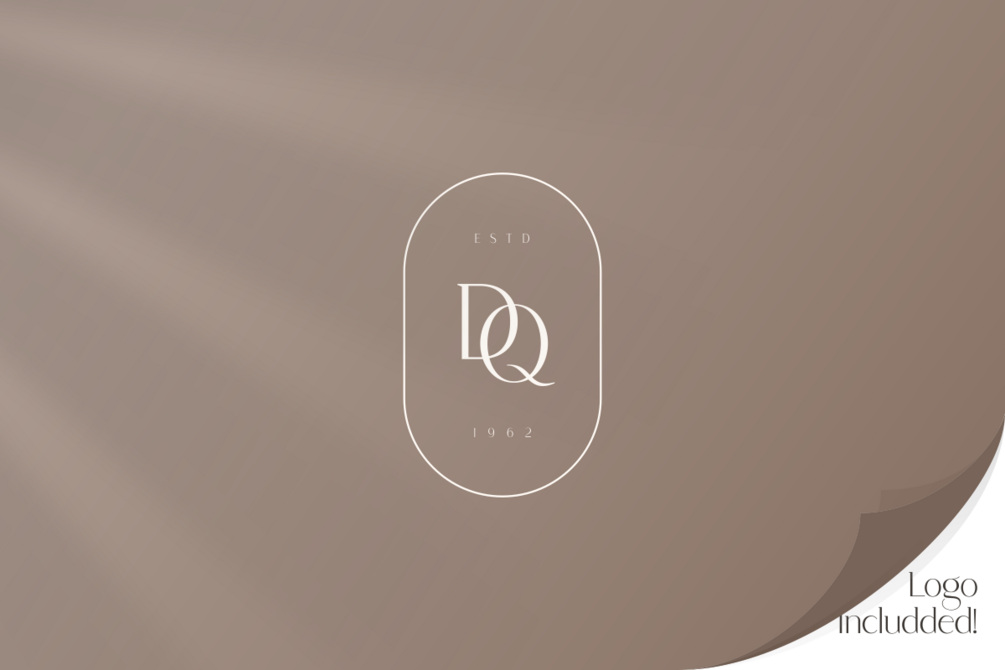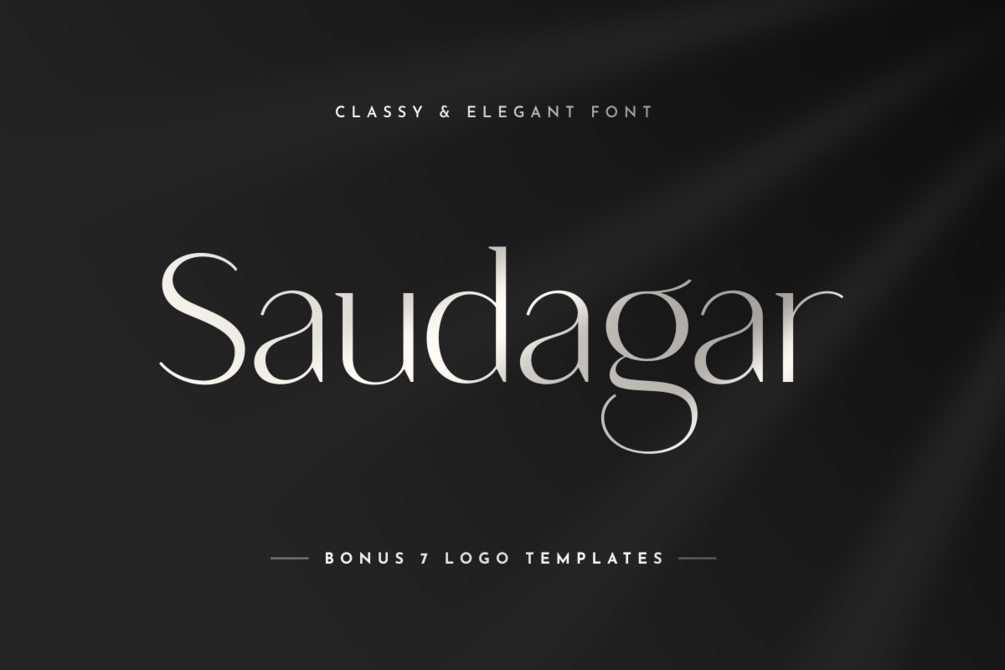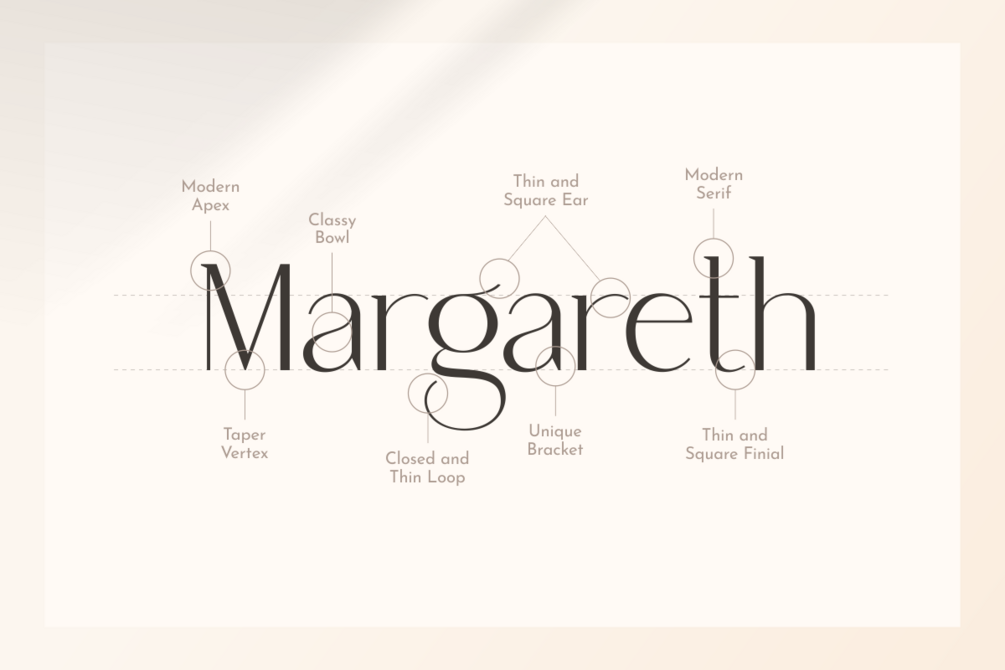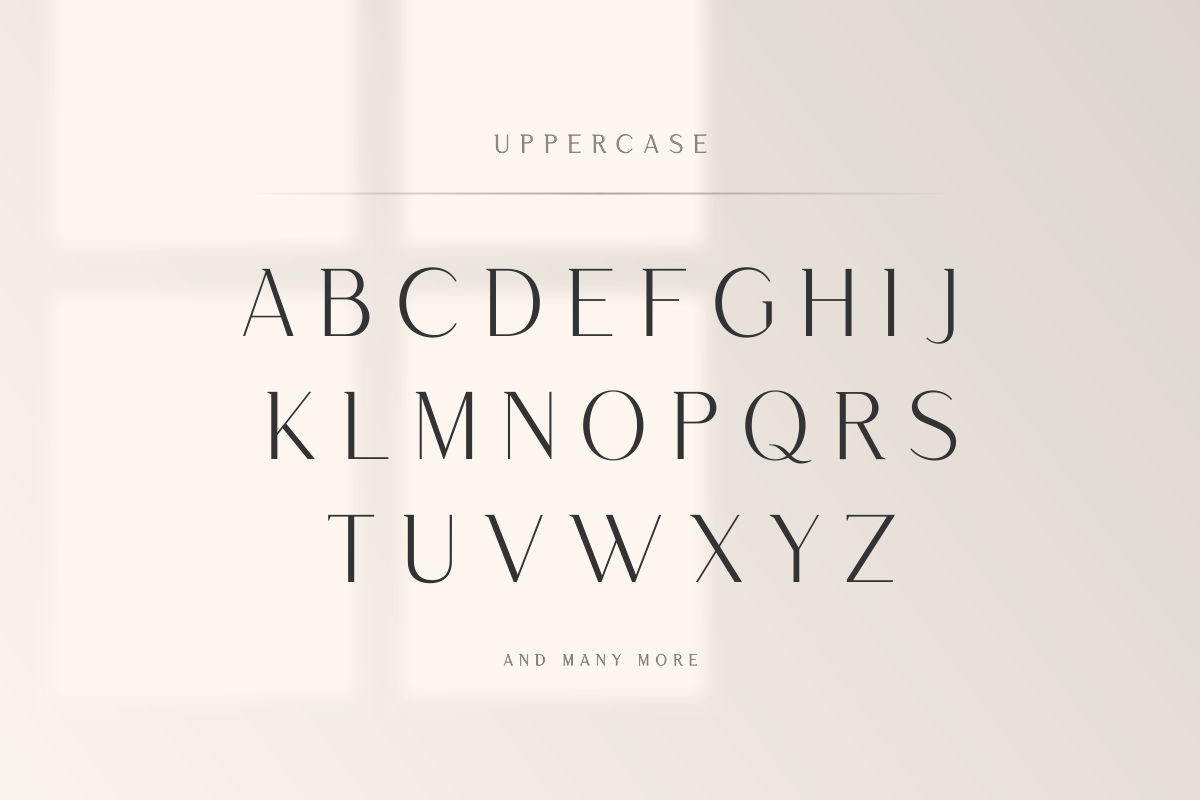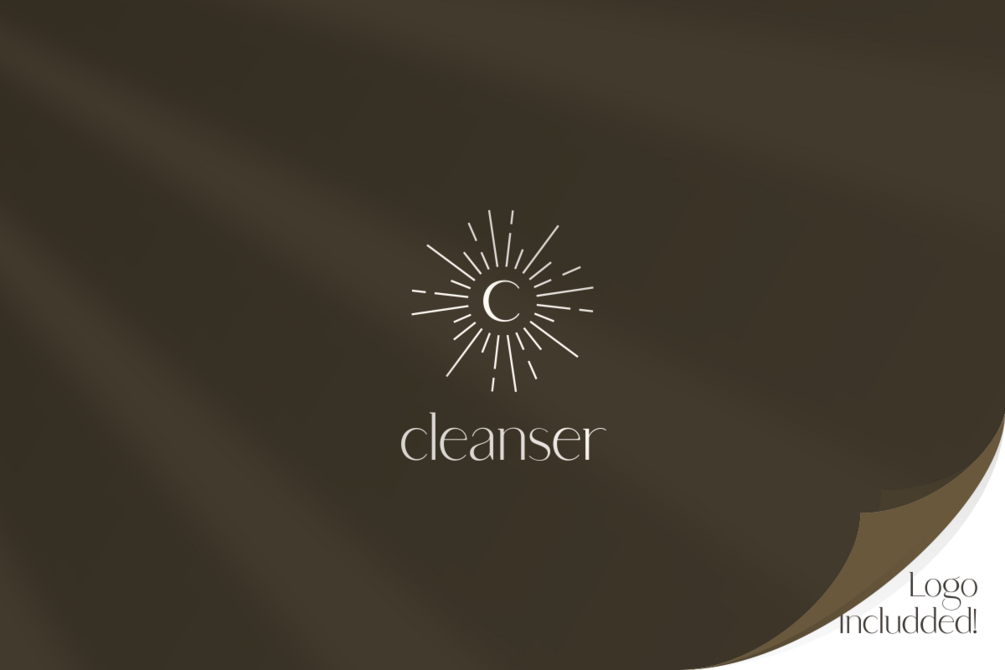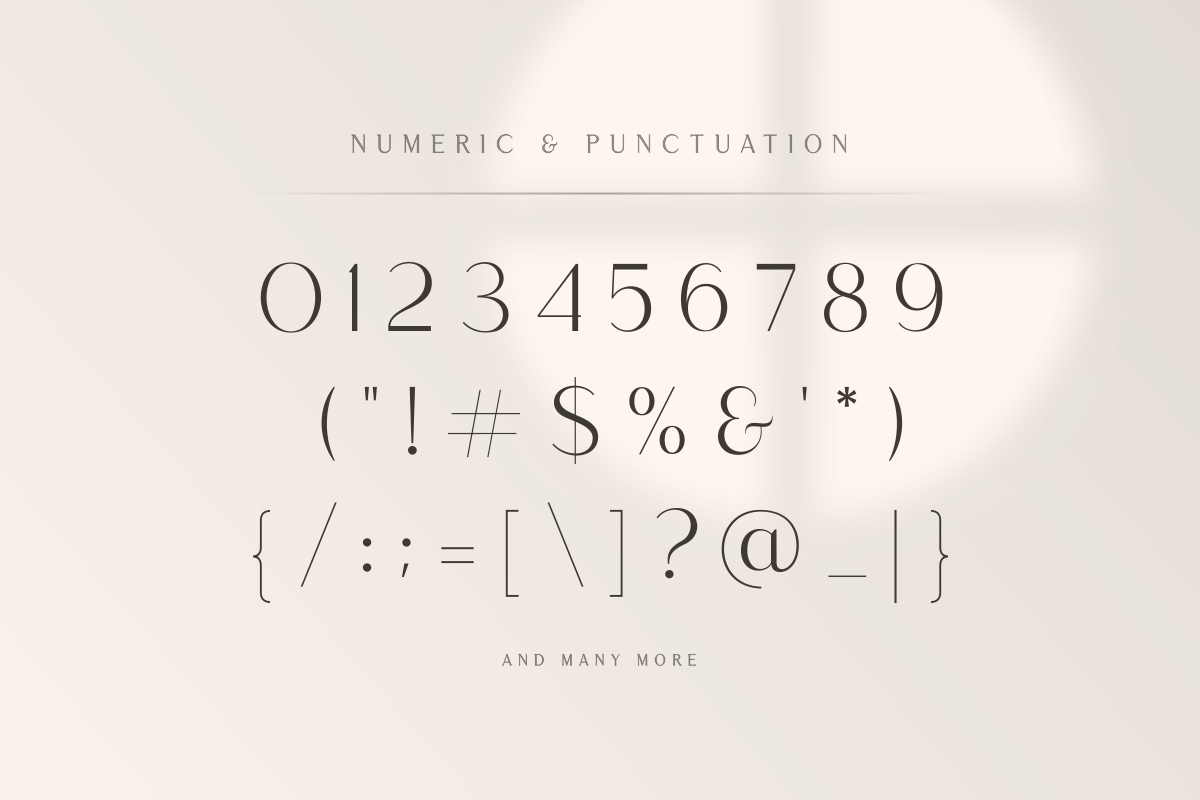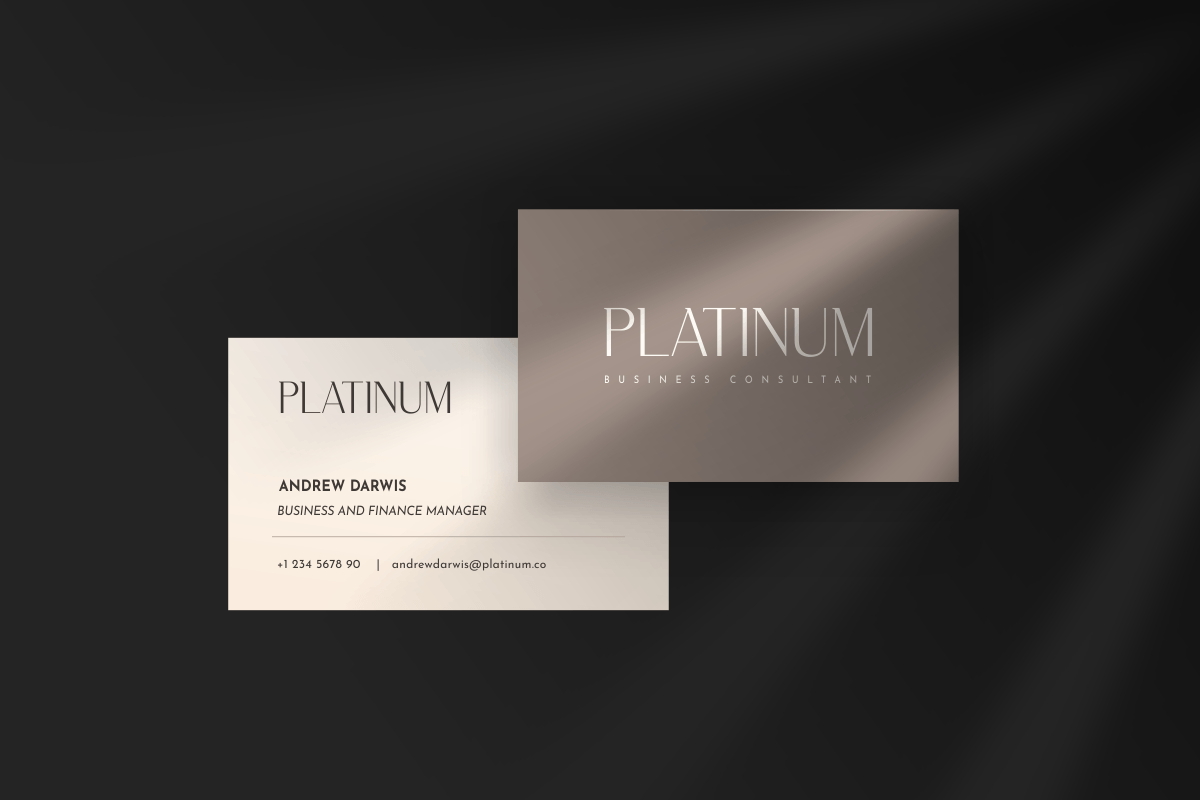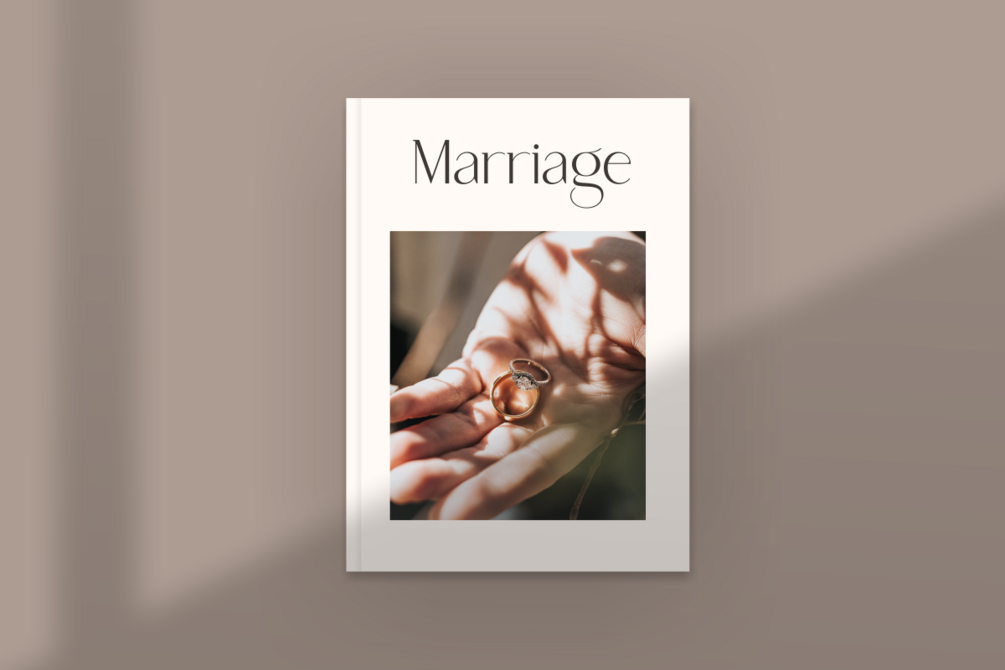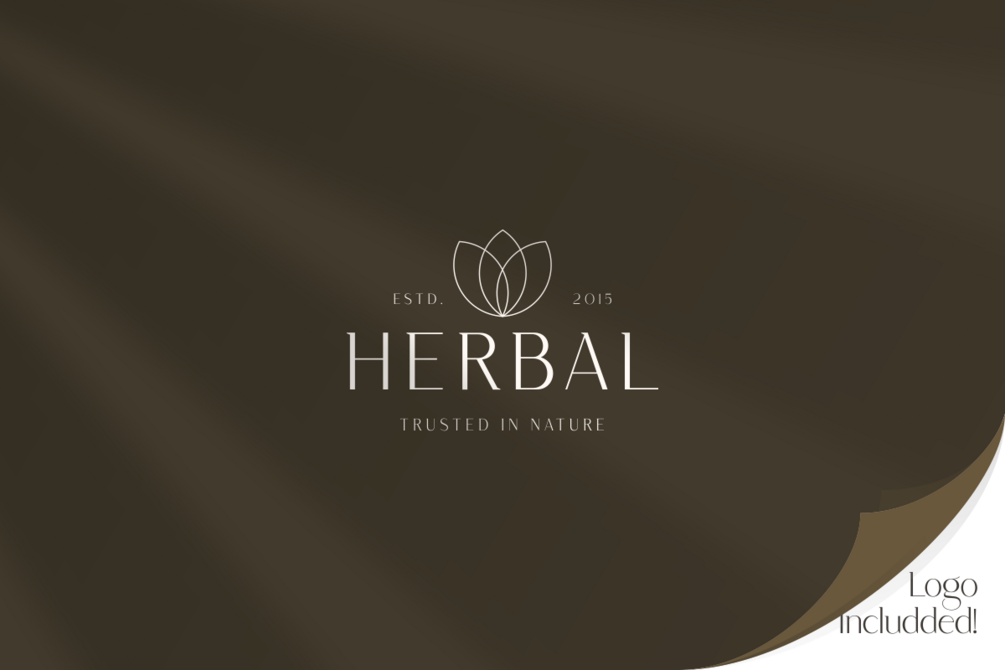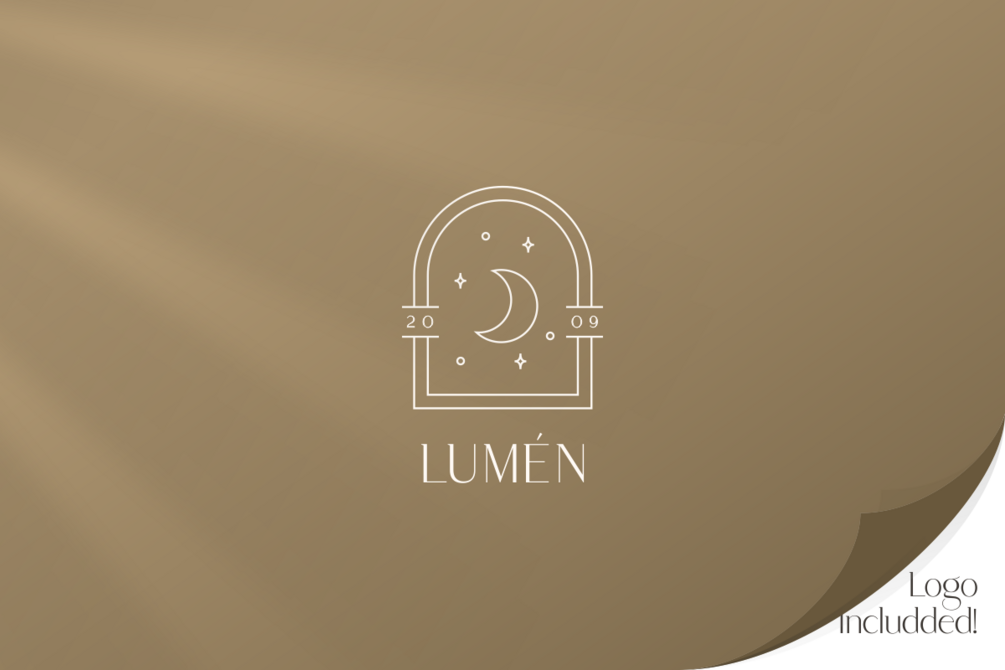
Saudagar - Elegant Font
Saudagar is an elegant font designed to add sophistication and charm to your creative projects. Its graceful letterforms make it ideal for branding, logos, invitations, packaging, and editorial designs.
With a perfect balance of elegance and readability, Saudagar enhances any design with a polished, professional, and visually appealing look. Suitable for both digital and print applications, this font brings refined style to every project.
Saudagar – Elegant Font Features
• Stylish and sophisticated character set
• Elegant, refined, and professional design
• Includes uppercase, lowercase, numerals, and punctuation